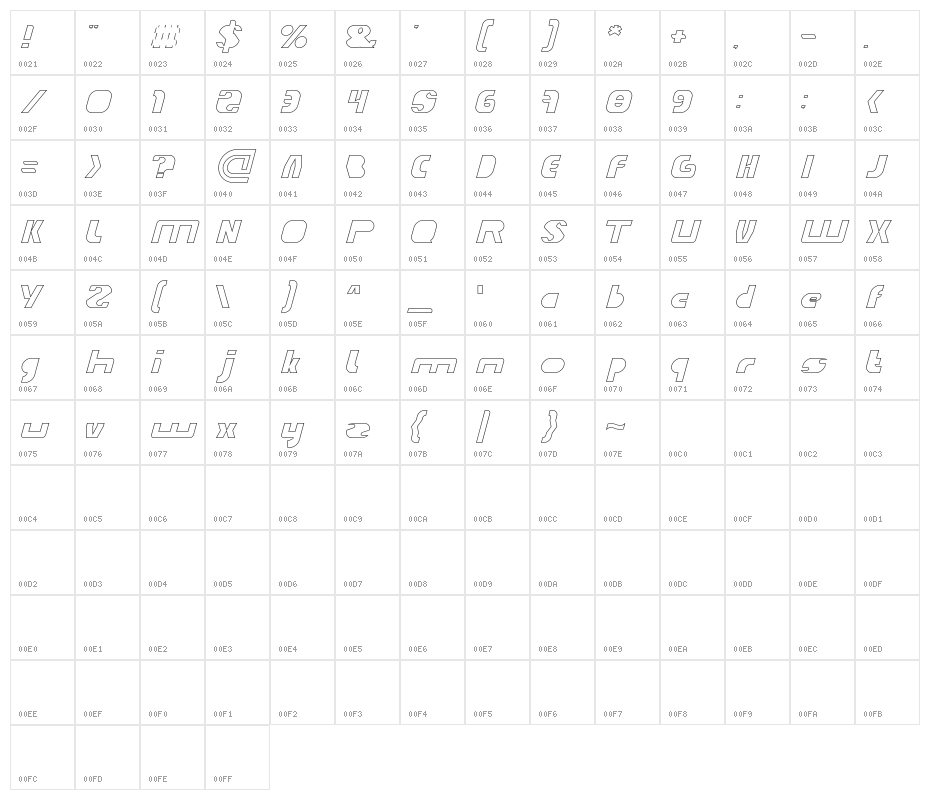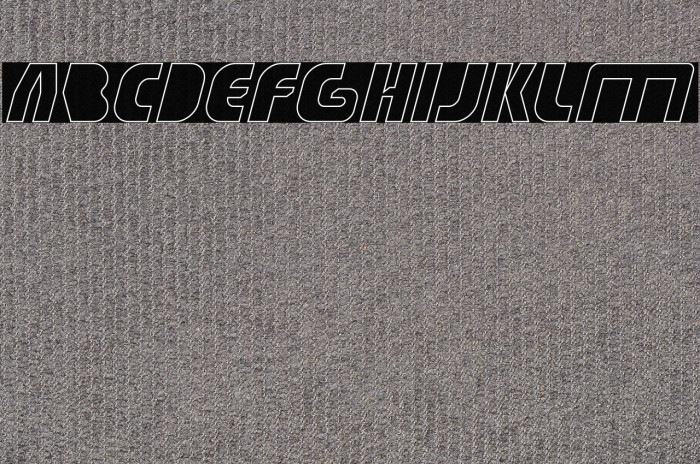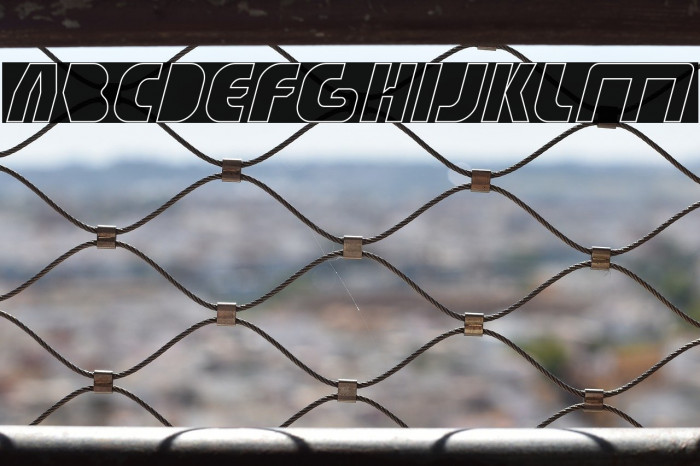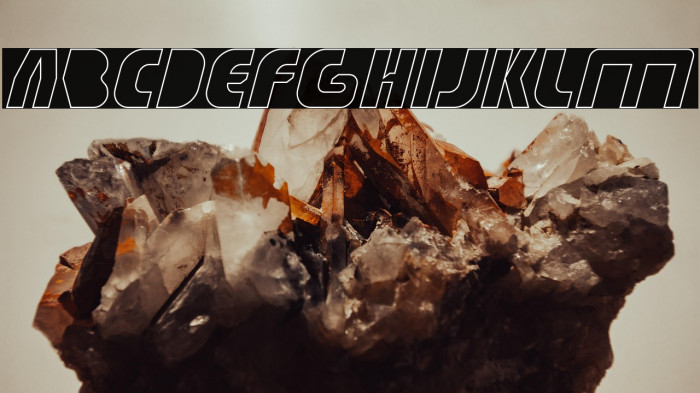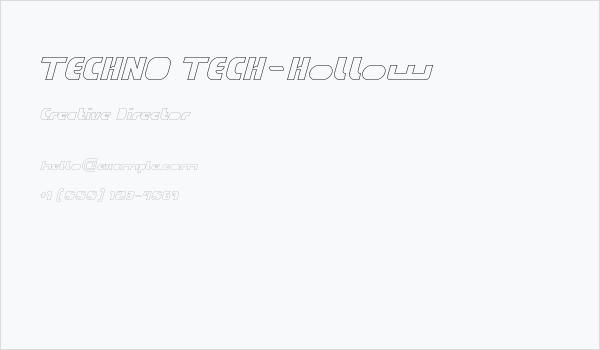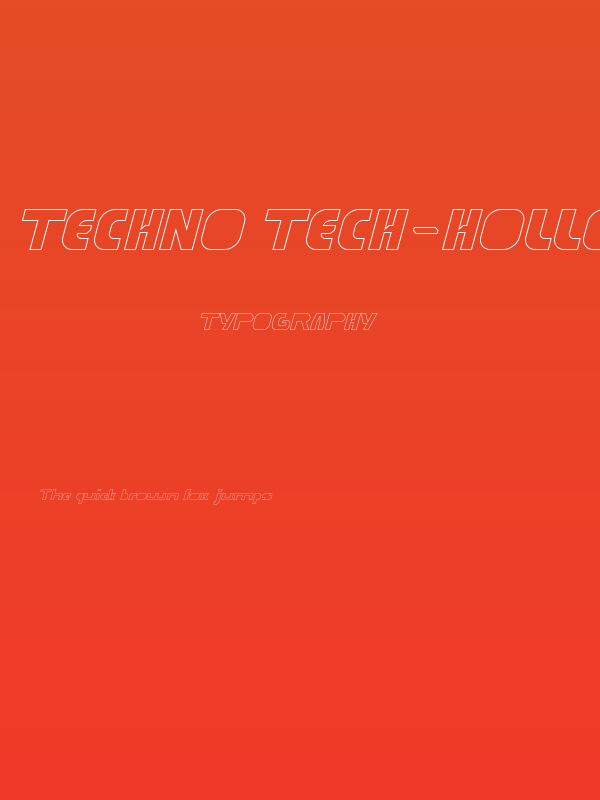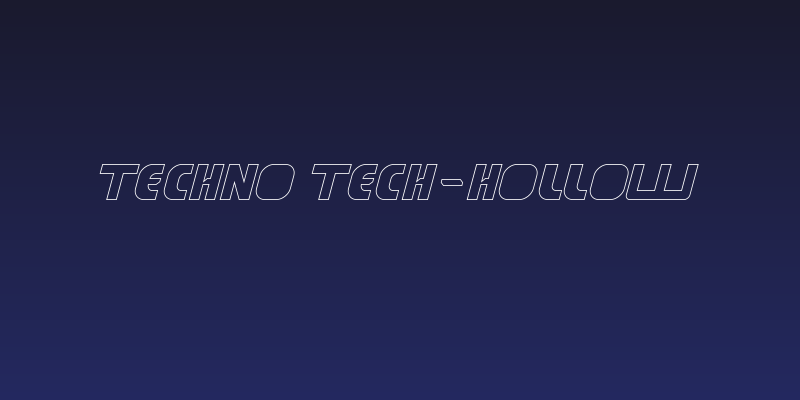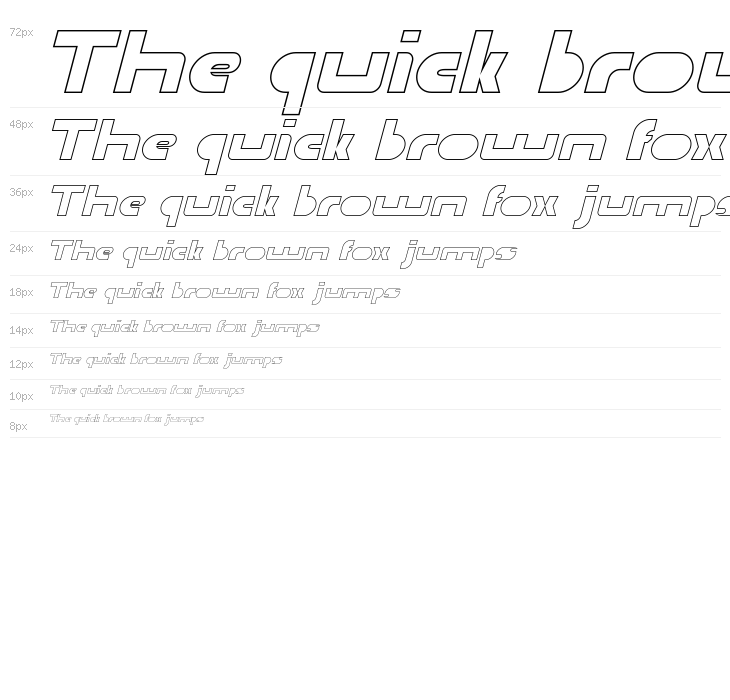
TECHNO TECH-Hollow Font
TECHNO TECH-Hollow Description
This font features a futuristic, hollow design with a geometric structure. The characters are outlined, giving them a three-dimensional appearance. The uppercase and lowercase letters maintain a consistent style, with sharp angles and clean lines that suggest a modern, technological aesthetic. The numerals and special characters follow the same design principles, ensuring uniformity across the entire typeface. The hollow nature of the font makes it ideal for creating a striking visual impact, especially in digital or print media where a modern and innovative look is desired.
| Proposed Projects | Ideal for technology branding, sci-fi themed projects, digital media, and innovative product packaging. |